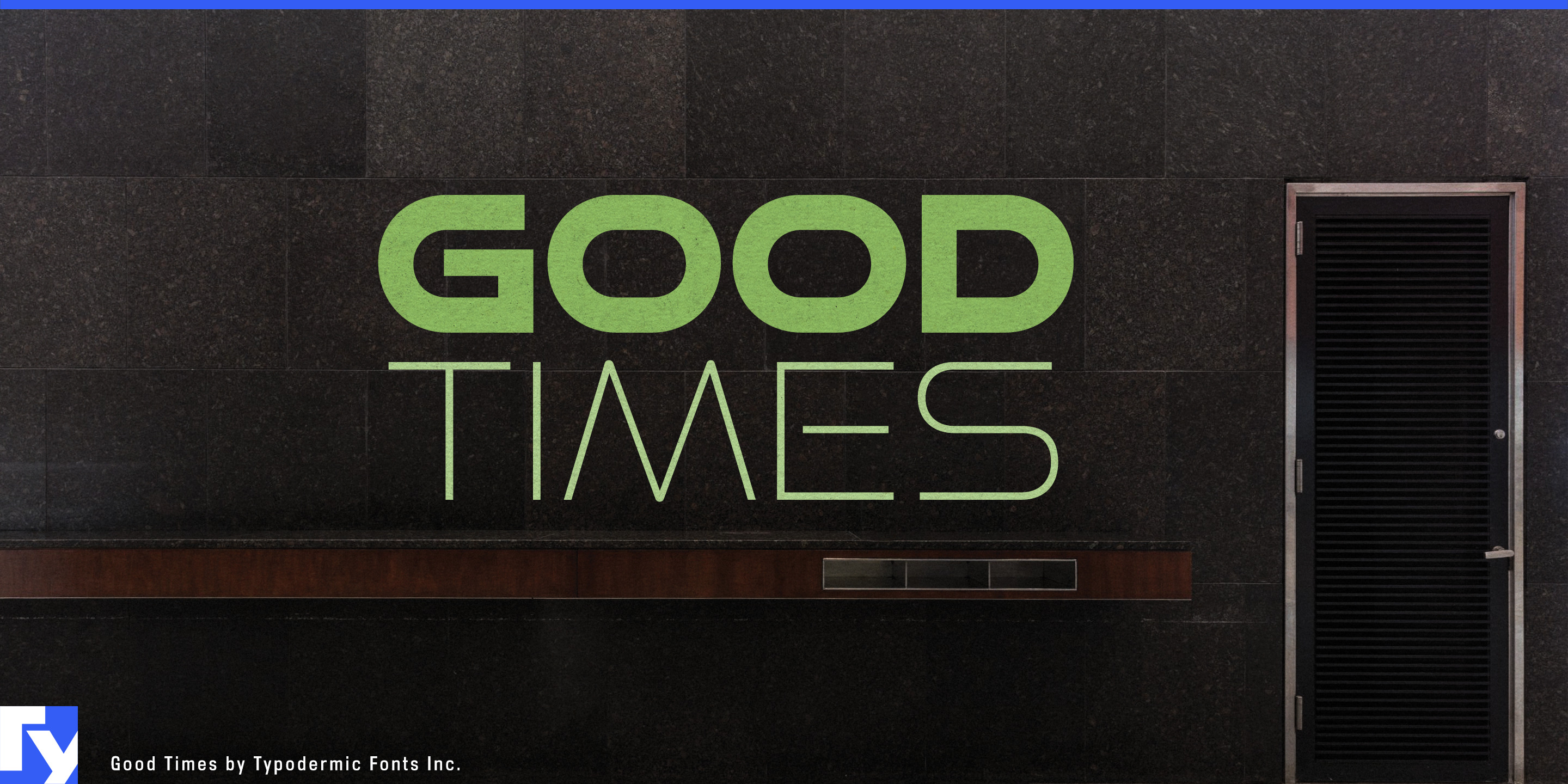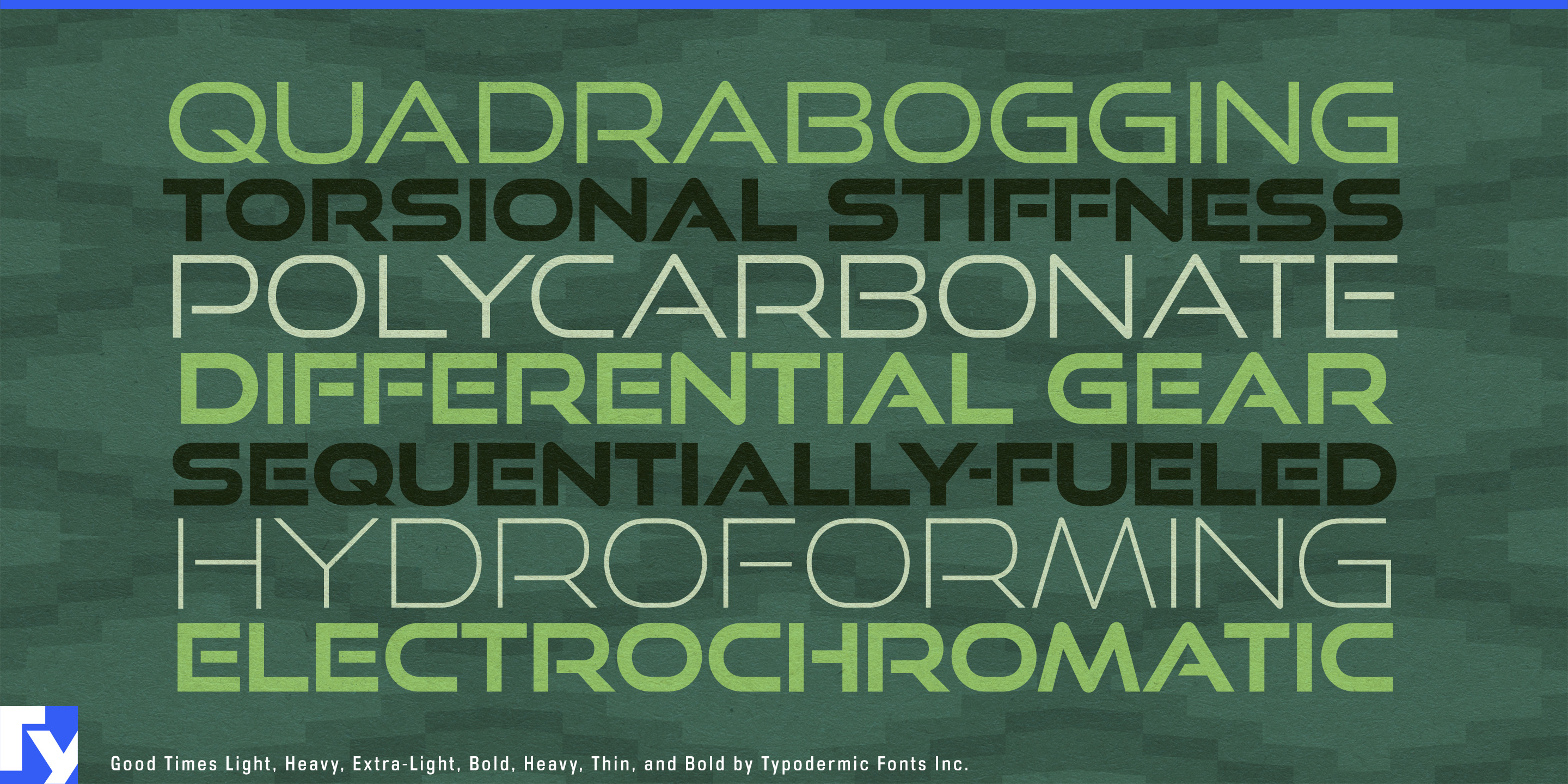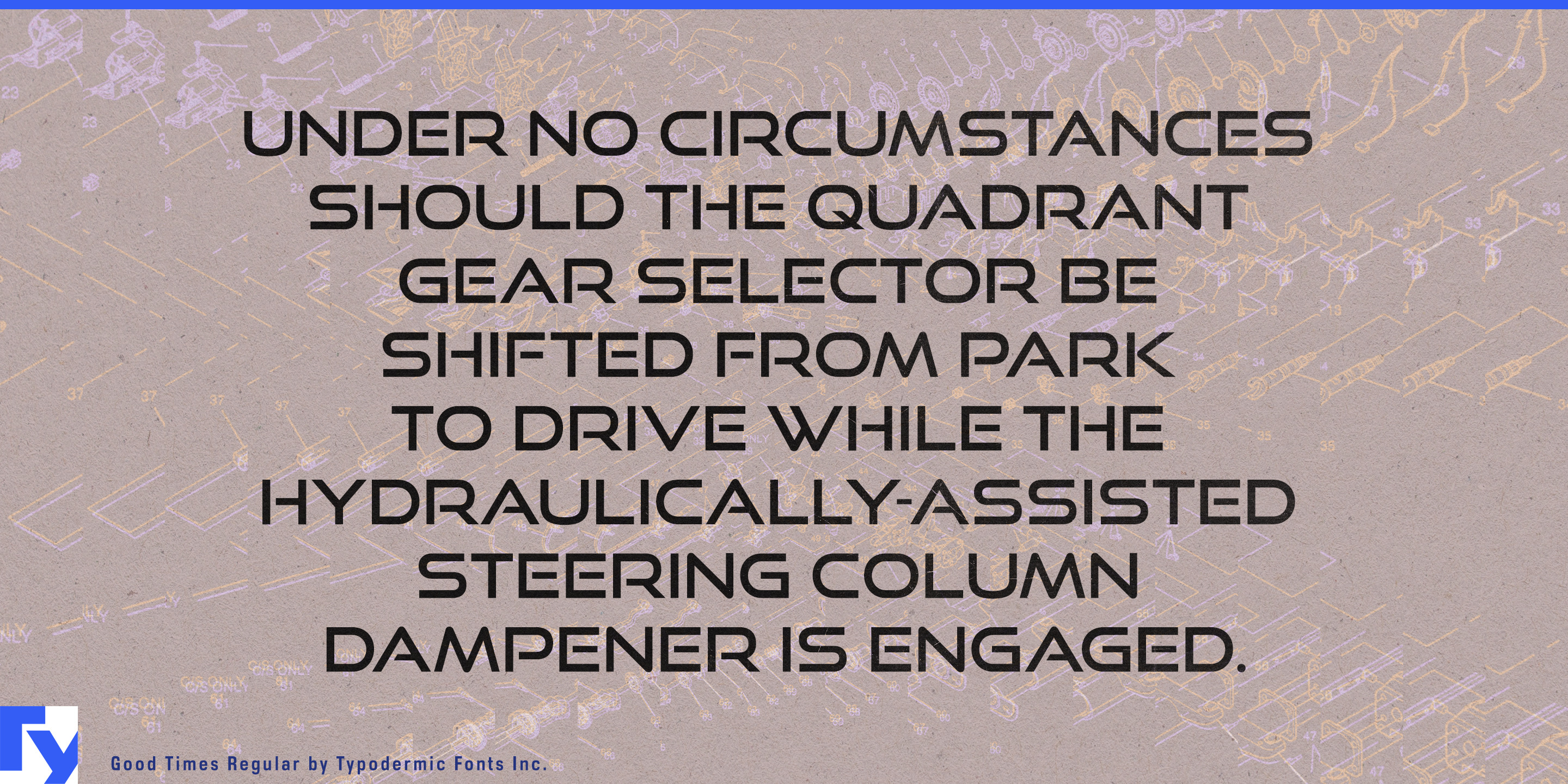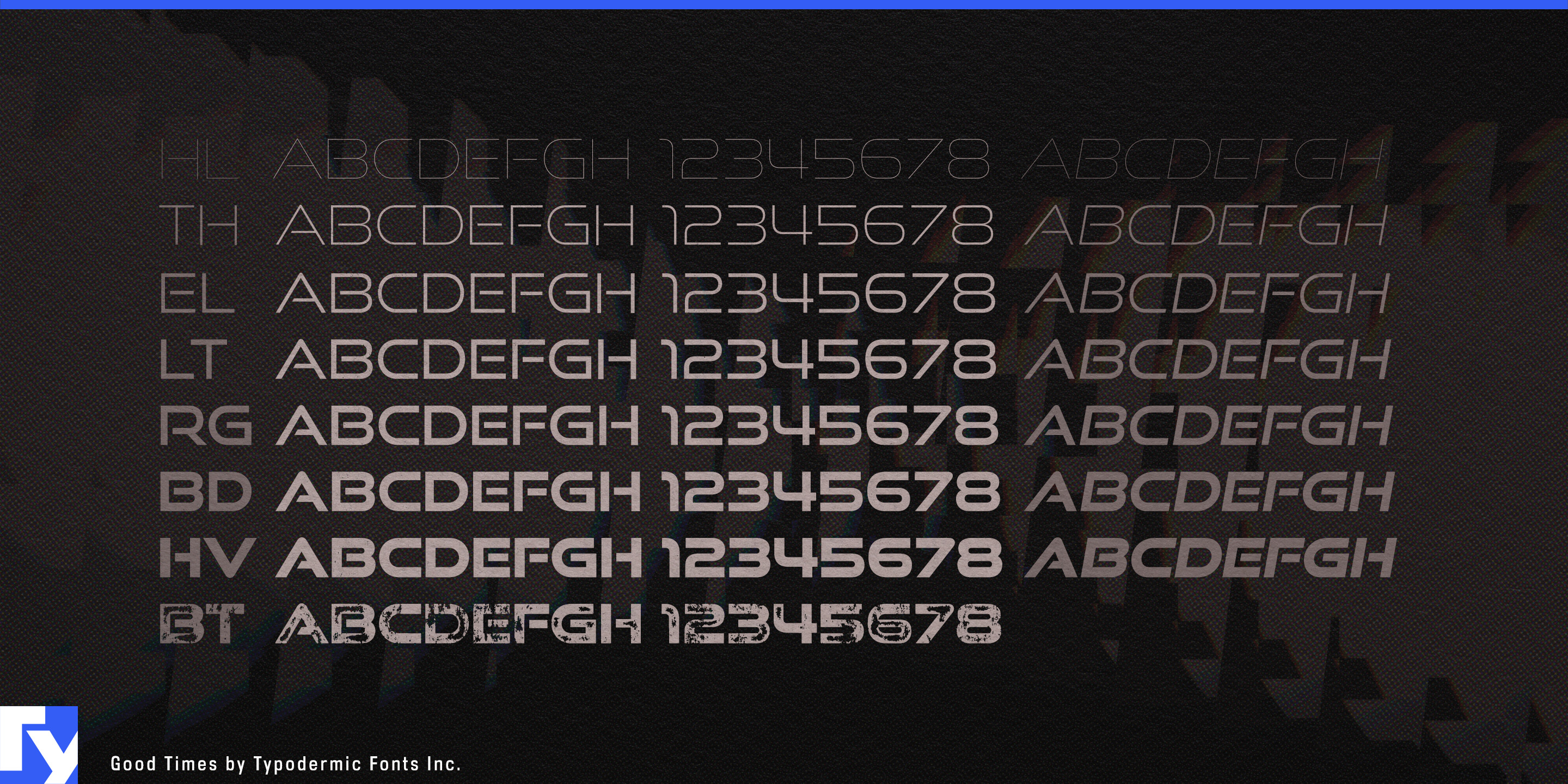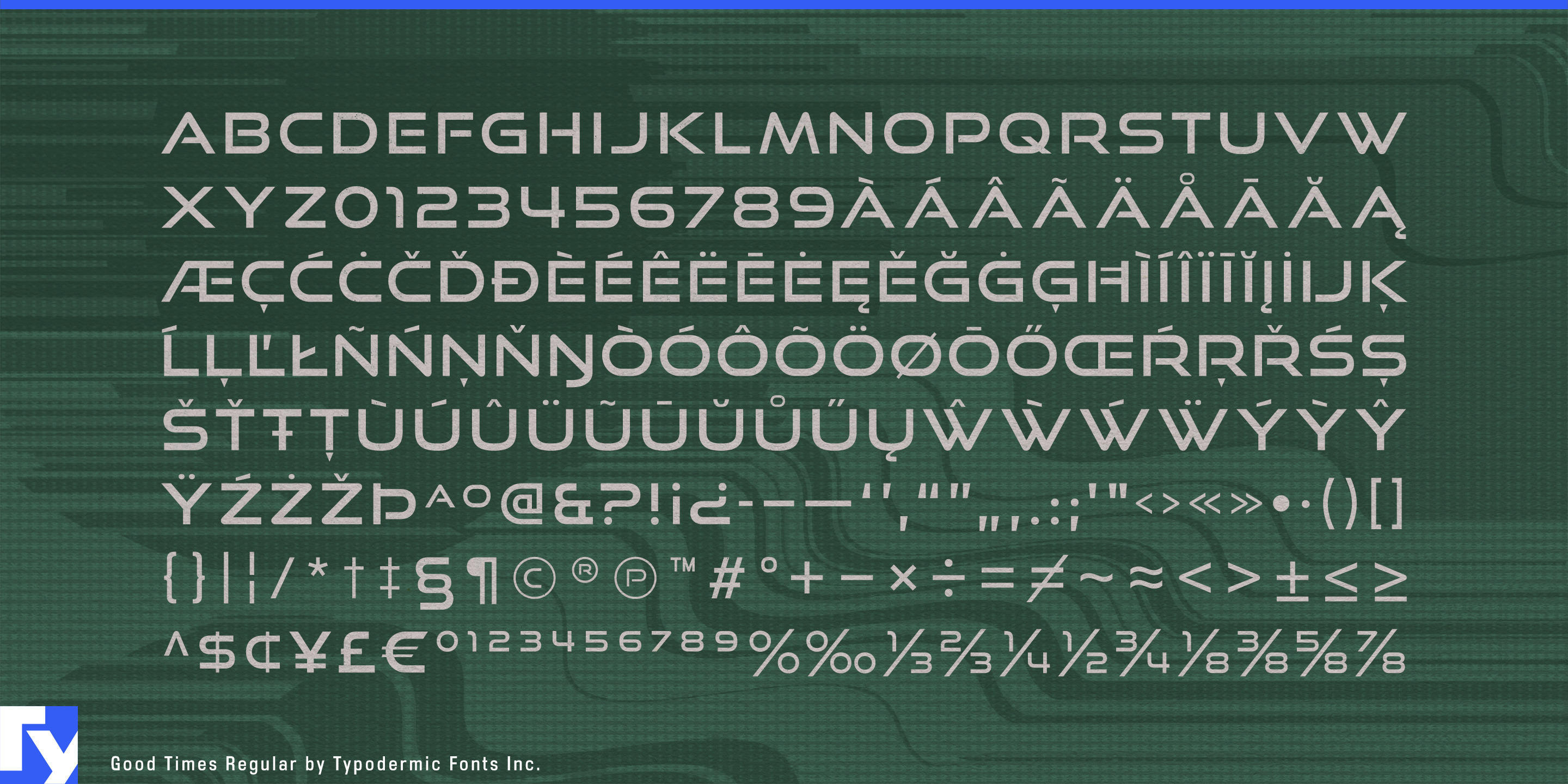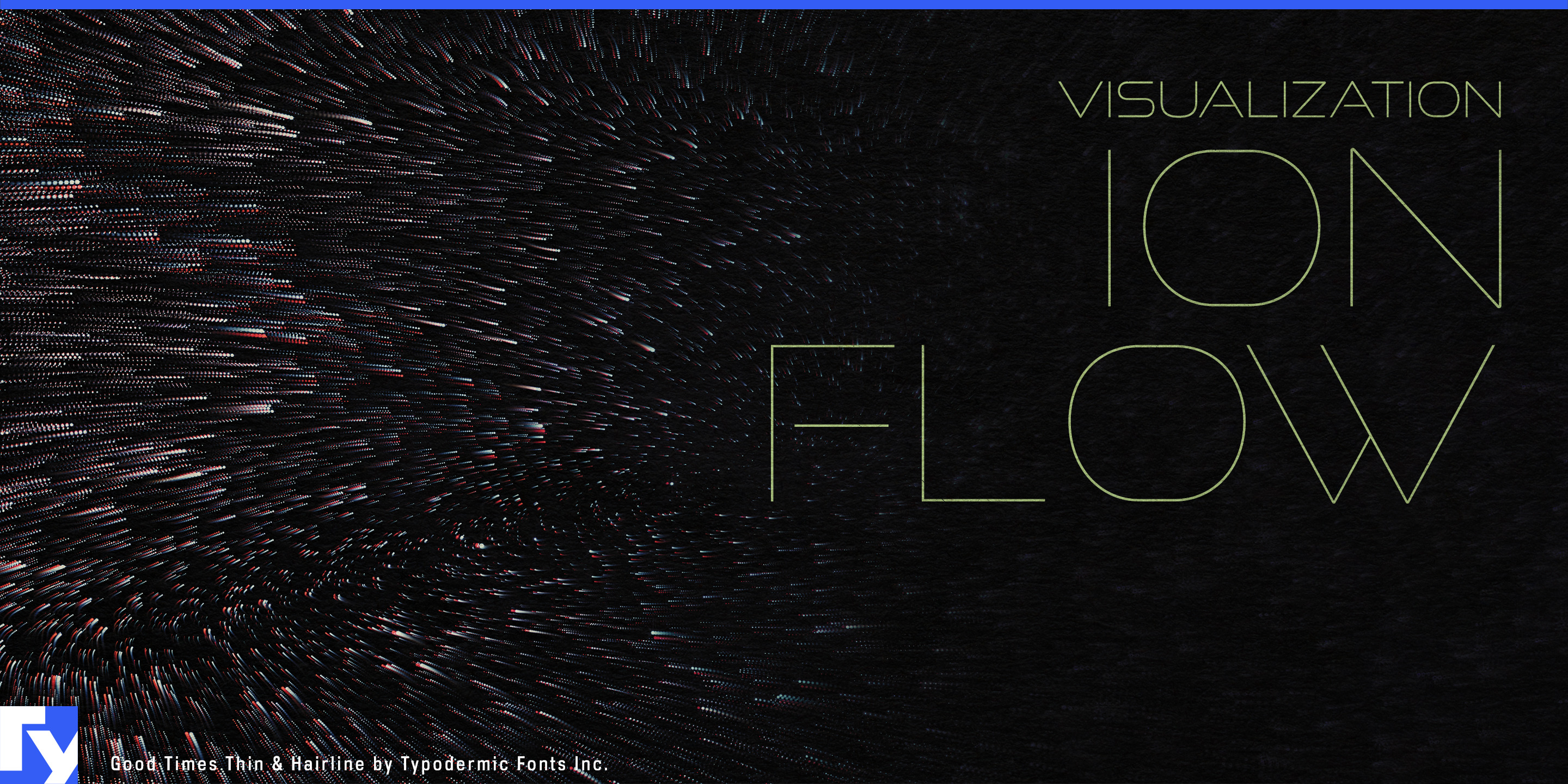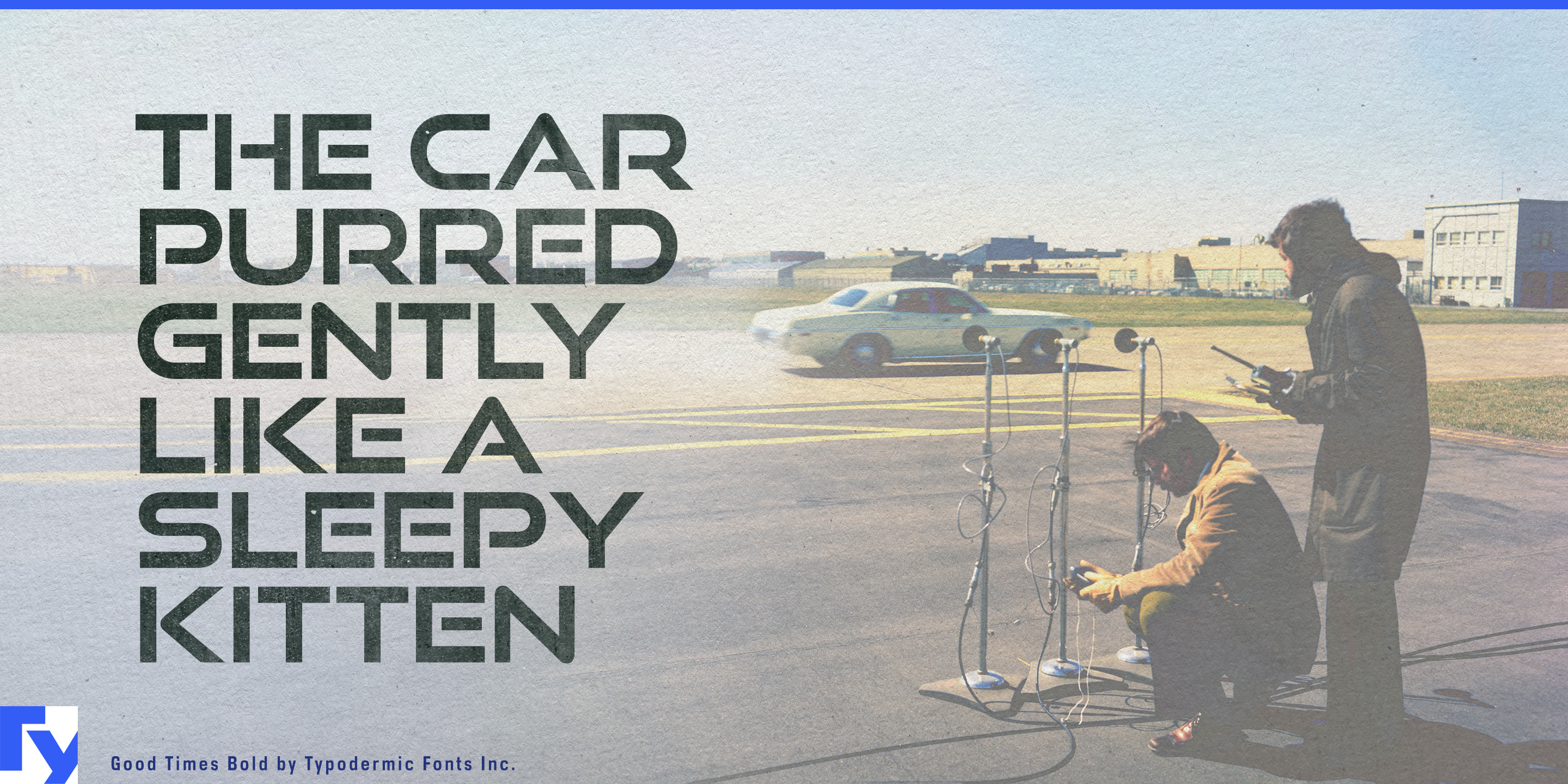
Good Times
Some names need to behave more like badges than sentences. Vehicle models, robot platforms, paddle series, drive systems, and simulator hardware have to read instantly across a machine, product surface, launch screen, or exhibition wall. A neutral corporate sans can make those names disappear; an extreme techno face can make real engineering look fictional.
Good Times occupies the space between them. Its wide all-caps forms, rounded geometry, and strong horizontal emphasis give short names and alphanumeric model designations a technical identity without sacrificing immediate recognition. The expanded proportions are especially useful when the typography needs to spread across a physical product or panoramic display rather than fill a paragraph.
Electric mobility is a natural fit. Good Times can carry performance EV model names, electric-motorcycle graphics, e-bike frame lettering, battery and drive-system names, charging-platform identities, autonomous shuttle names, and advanced-air-mobility model designations. It works particularly well for trim names, fairing graphics, equipment markings, concept presentations, and vehicle-reveal screens.
Industrial robotics presents a similar naming problem. Autonomous mobile robots, warehouse systems, inspection machines, industrial drones, and automated material-handling equipment often rely on compact model names and technical series designations. Good Times gives robot housings, charging docks, fleet names, demonstration screens, and automation trade-show graphics a distinct engineered character while leaving specifications and interface text to a quieter companion face.
Performance sports equipment is another strong territory, especially where product technology is printed directly on the object. Pickleball paddles, carbon bicycle frames and wheels, performance footwear, helmets, skis, snowboards, and training equipment all carry model names, construction systems, and technology labels. The width of Good Times works particularly well across a pickleball paddle face, bicycle frame, shoe component, or equipment housing, where a short all-caps name can become part of the product design.
Sim racing and simulation hardware extend the same idea into another equipment category. Direct-drive wheelbases, steering wheels, pedal systems, shifters, flight controls, motion platforms, and simulator cockpits are covered in model names and performance tiers. Good Times can handle the identity on the hardware itself, cartons, launch graphics, exhibition displays, and large announcement screens while maintaining a clear connection to real automotive and engineering culture.
Good Times is intentionally all caps, which suits these badge-like roles particularly well. For projects that need a related wide technical style with lowercase for mixed-case names, interface messages, or supporting text, Good Timing provides a separate mixed-case family built for those jobs.
- Geometric, Rounded
- Expanded